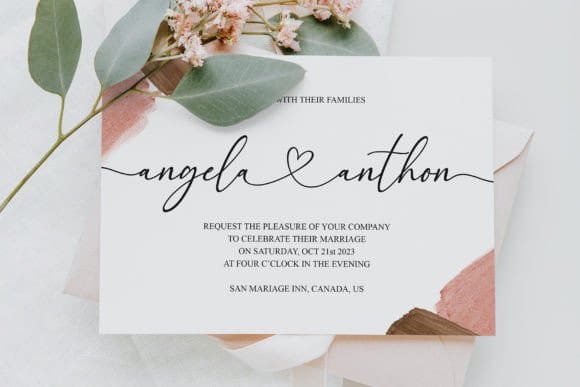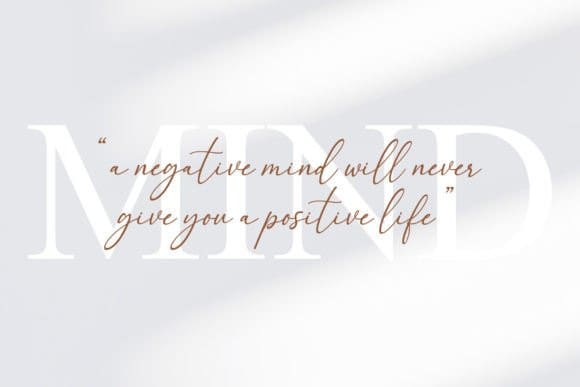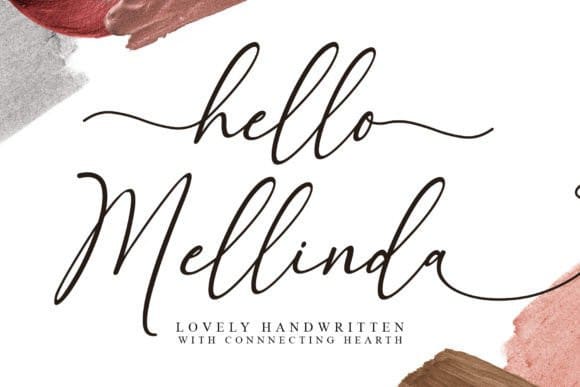
Hello Mellinda Font
Hello Mellinda Font is a sweet and delicate handwritten font. Dainty and joyful, this font will be ideal for writing wedding invitations, cards, or any other design that may need a romantic, personalized touch!